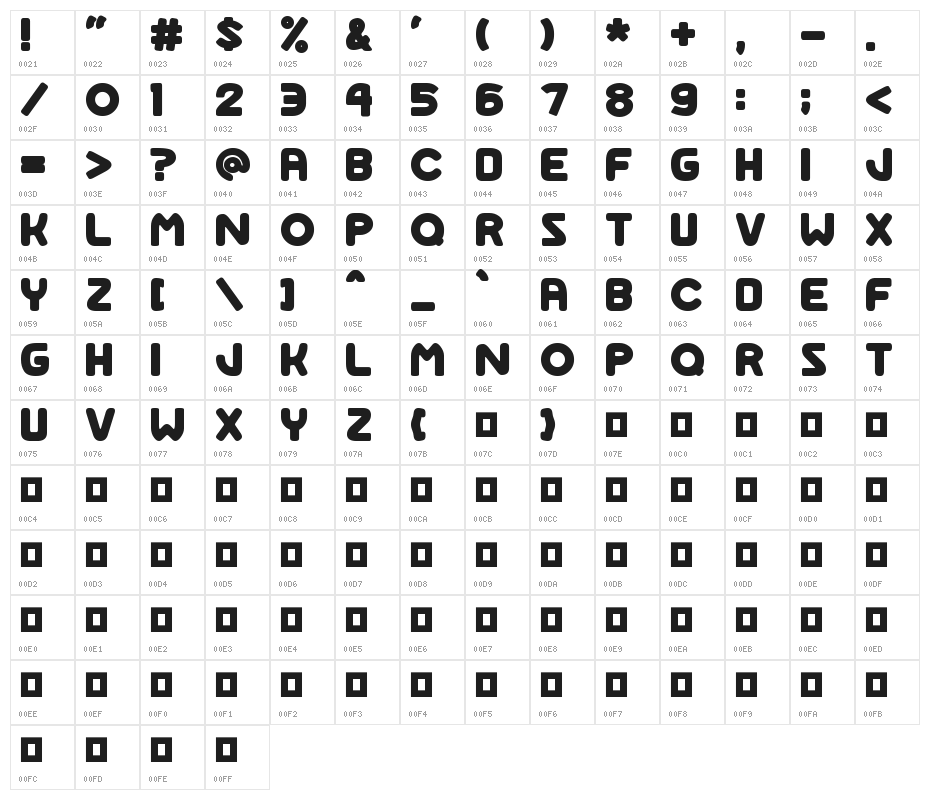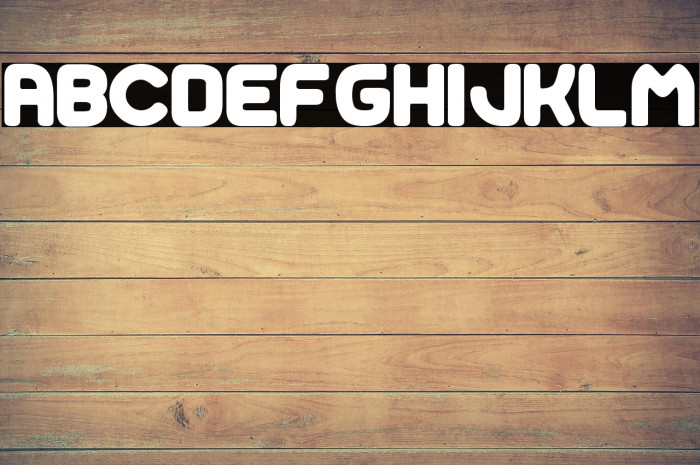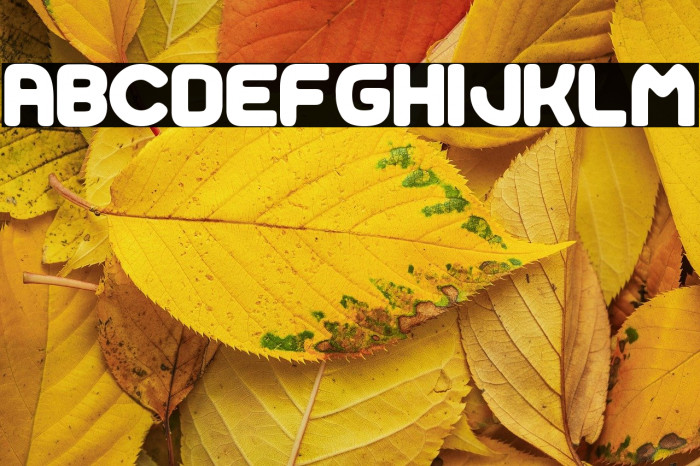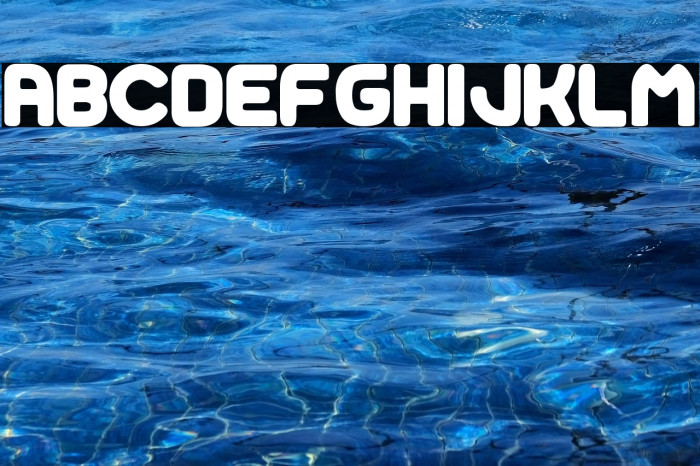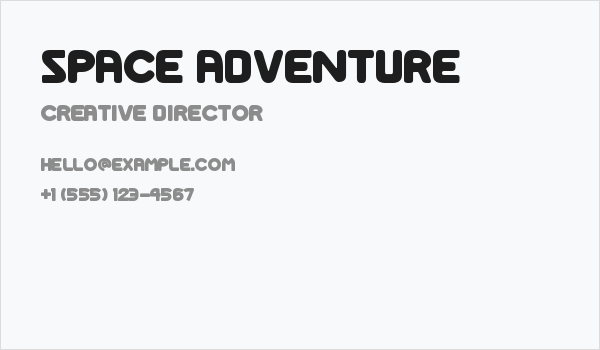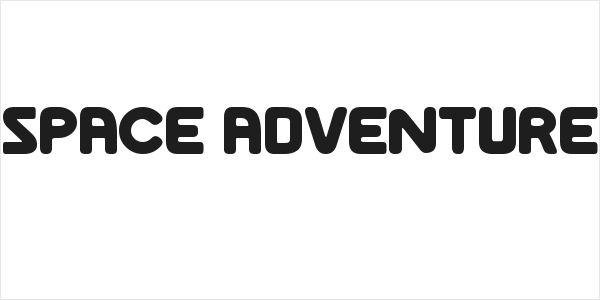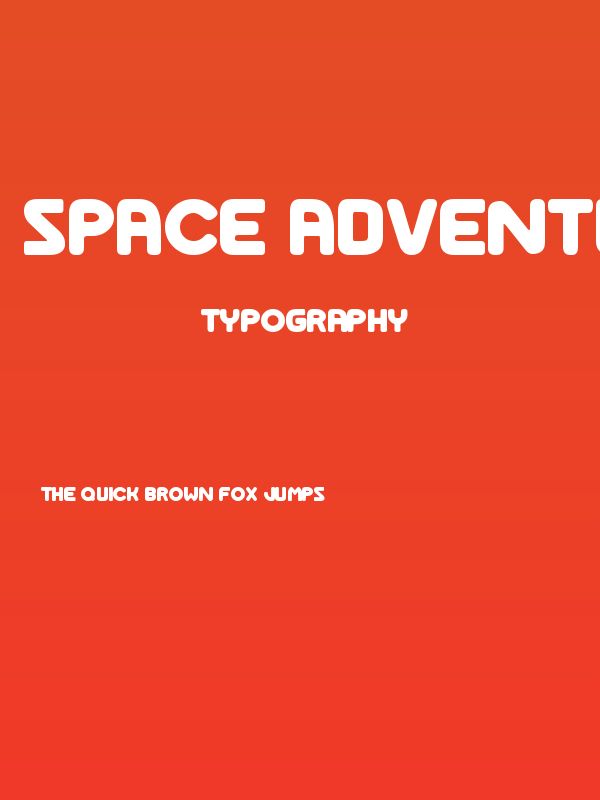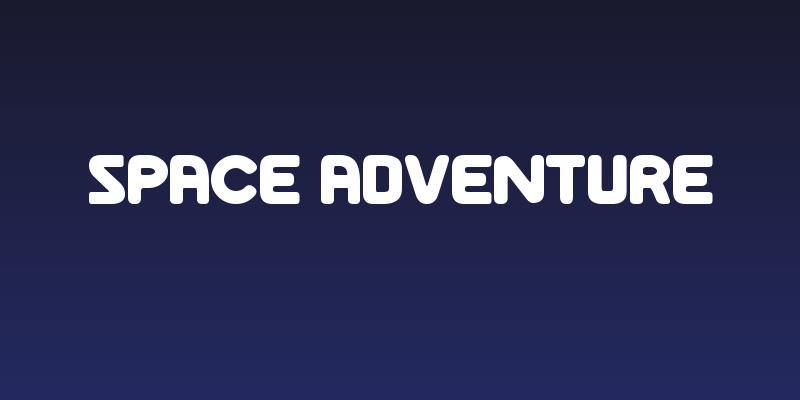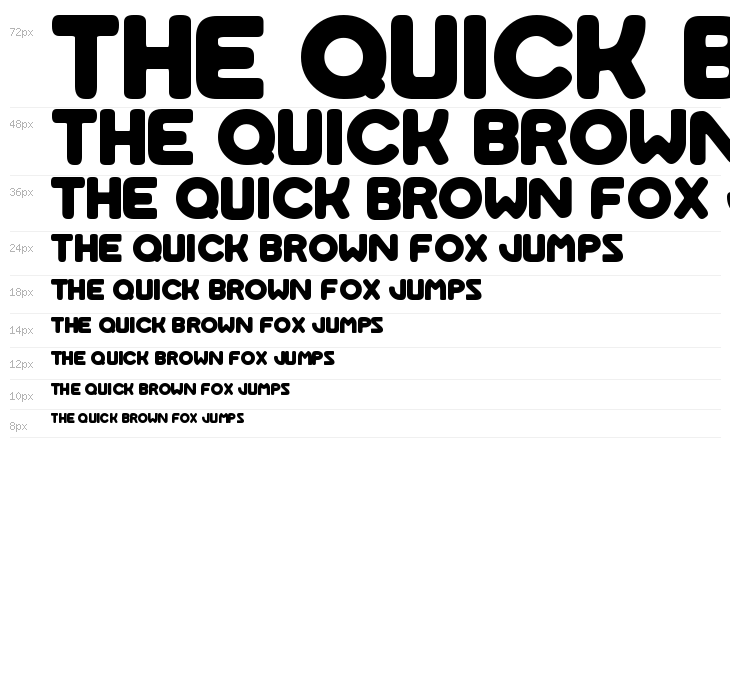
Space Adventure Font
Space Adventure Description
This font features a bold, rounded style with a futuristic and playful aesthetic. The characters are uniformly thick, with smooth curves and a consistent stroke width that gives it a cohesive look. The uppercase and lowercase letters maintain a similar structure, enhancing readability while adding a touch of modernity. The numerals and special characters follow the same design principles, ensuring a harmonious appearance across all glyphs. This font's design is ideal for projects that require a sense of innovation and creativity, making it suitable for technology-related themes or playful branding.
| Proposed Projects | Ideal for technology branding, sci-fi themed posters, video game titles, and children's book covers. |